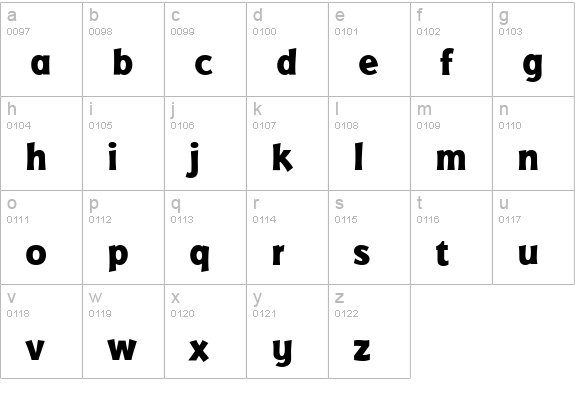
BadgerExtraBold Font Details
BadgerExtraBold is a powerful and bold typeface that exudes strength and confidence. With its thick lines and strong presence, this font is perfect for making a bold statement in your designs. Whether you're creating a striking headline or a standout logo, BadgerExtraBold will demand attention and leave a lasting impression. And the best part? BadgerExtraBold is available for free download at FontsMarket.com! You can easily access this dynamic font and incorporate it into your projects without any cost. Don't miss out on the opportunity to enhance your designs with the impactful BadgerExtraBold font - download it for free today!